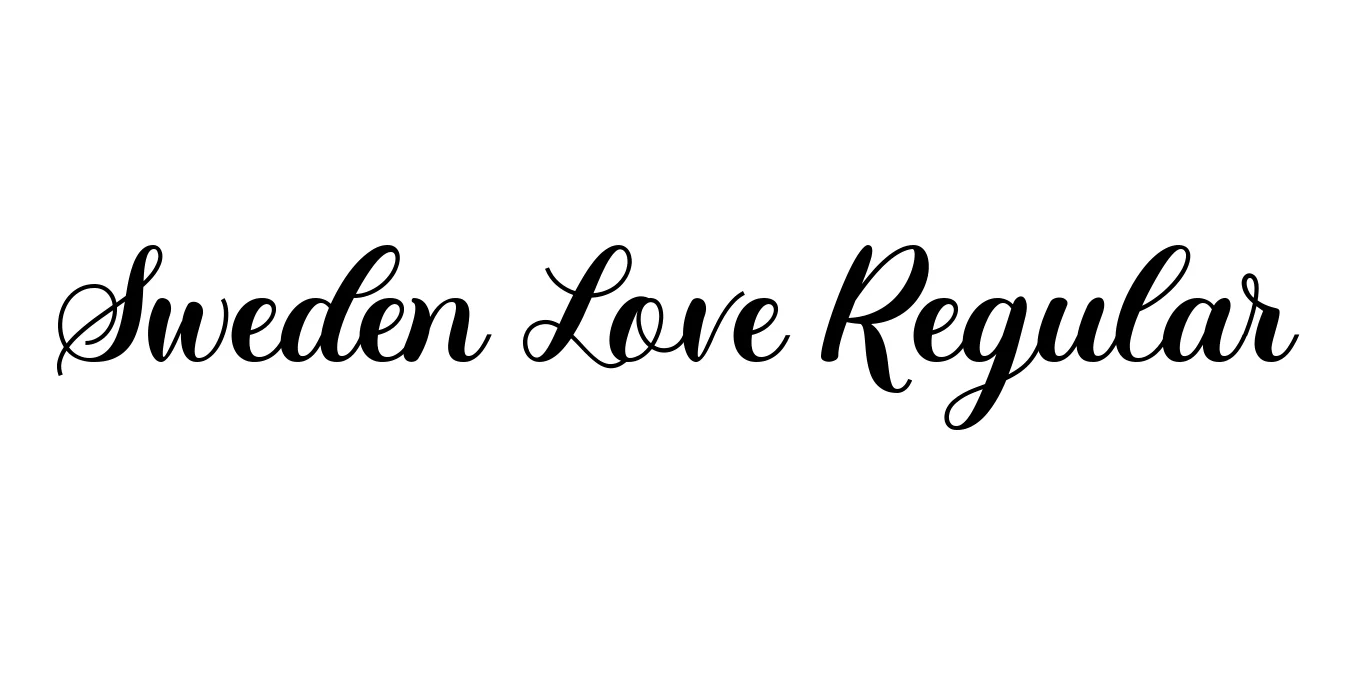
Sweden Love Regular
Designed by Bilal Chaniago
Sweden Love Regular is an elegant and sophisticated script typeface that captures the essence of modern calligraphy. It features fluid, rhythmic strokes and delicate ligatures that give it a personalized, hand-drawn appearance, making it perfect for romantic projects and high-end branding environments where a touch of human connection is required.
Developed to bridge the gap between traditional handwriting and digital design, this font offers a warm and inviting aesthetic. Its versatile nature allows it to stand out in minimalist layouts while maintaining high legibility, making it a favorite among professional graphic designers for wedding stationery, feminine logo designs, and stylish social media graphics.
Sweden Love Regular Best Uses
Ideal for invitations, RSVP cards, and envelopes for a romantic look.
Great for logos and packaging that require a personal and luxury touch.
Perfect for quotes, Instagram stories, and stylish video overlays.